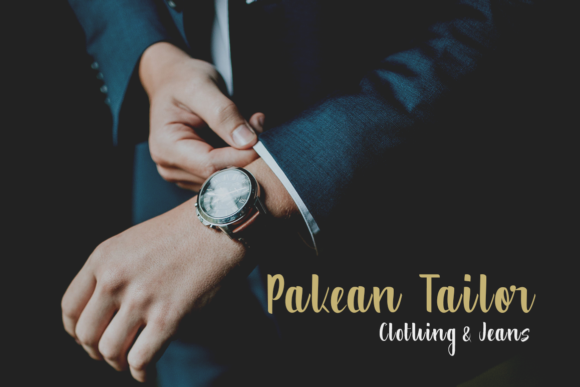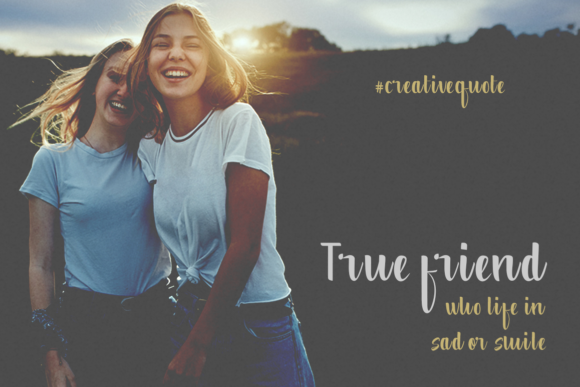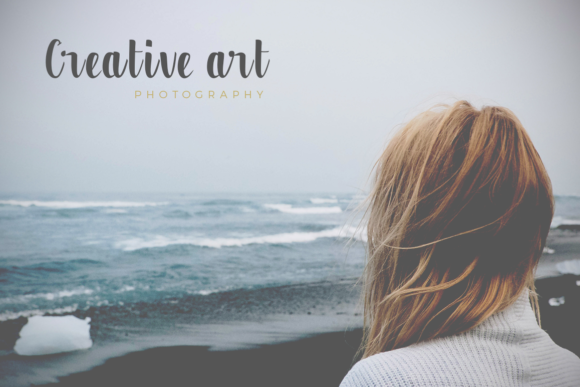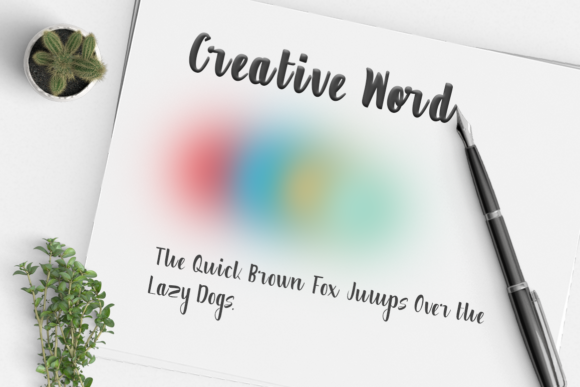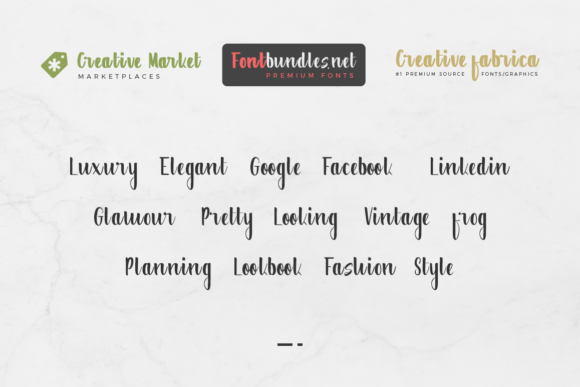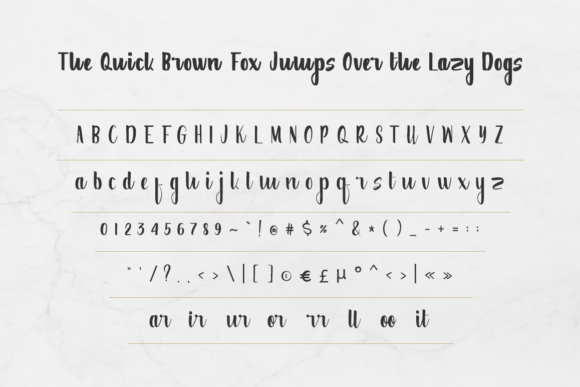
Creative Word Font
About Creative Word Font
Creative Word is a modern calligraphy font, ideal for use in any type of project that needs a friendly and fashionable vibe! This script combines classic and modern type concepts, and will add undeniable charm to your work.